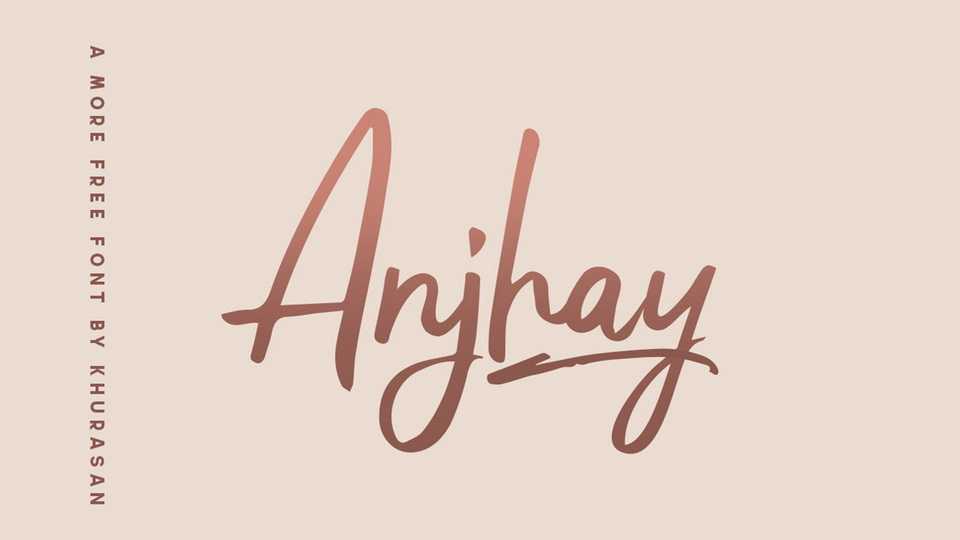
Download Anjhay font, a casual brush script with a natural handwriting look. Anjhay is perfect for DIY projects, greeting cards, labels, quotes, wall art, branding, photography overlays, signs, scrapbooking, tags and more.